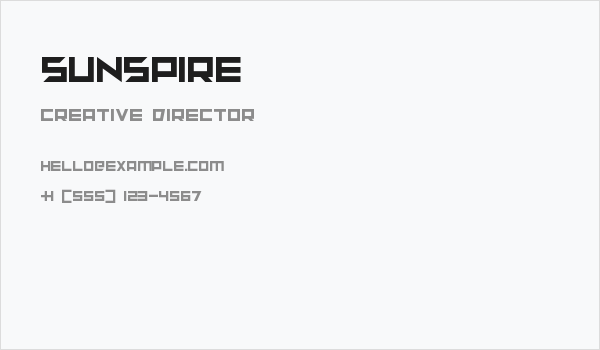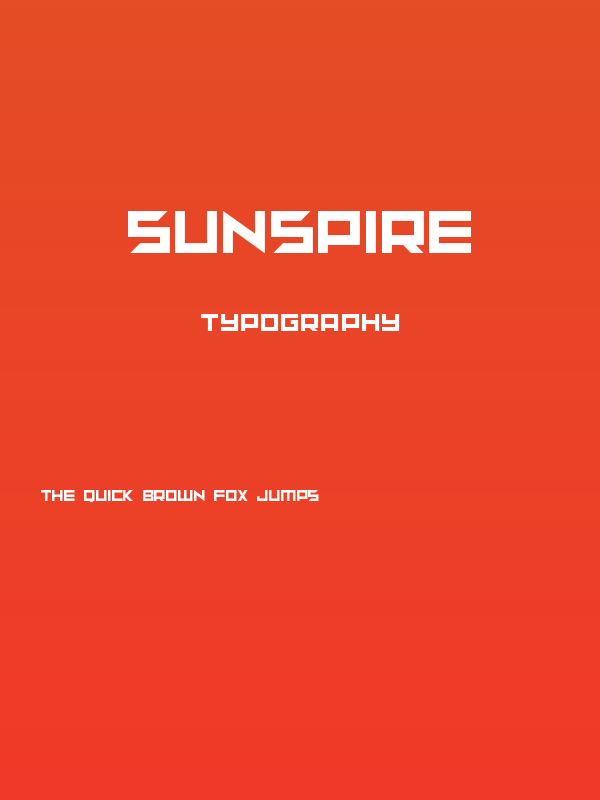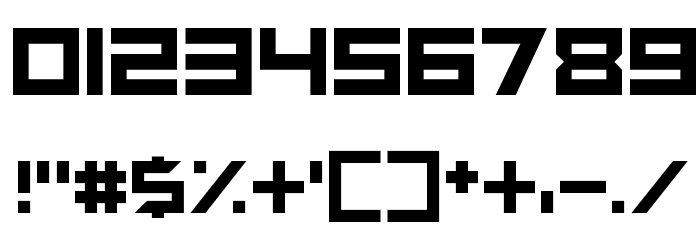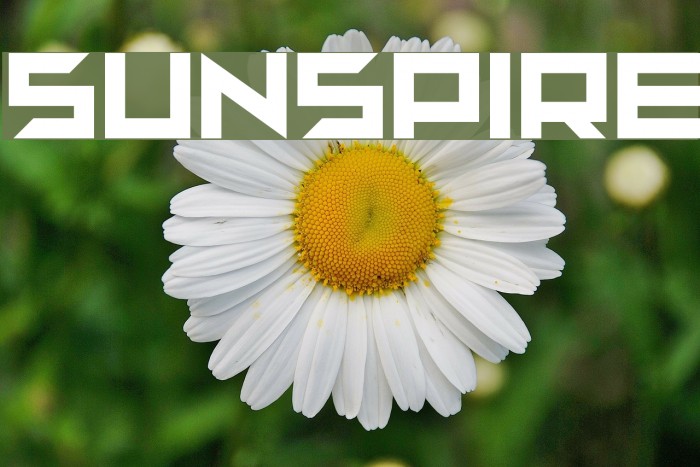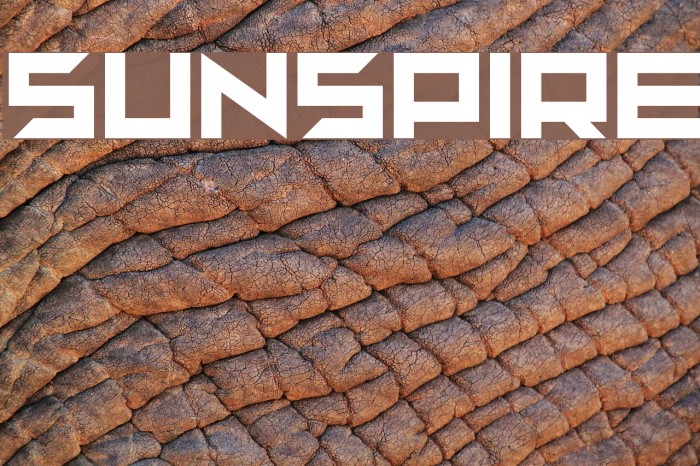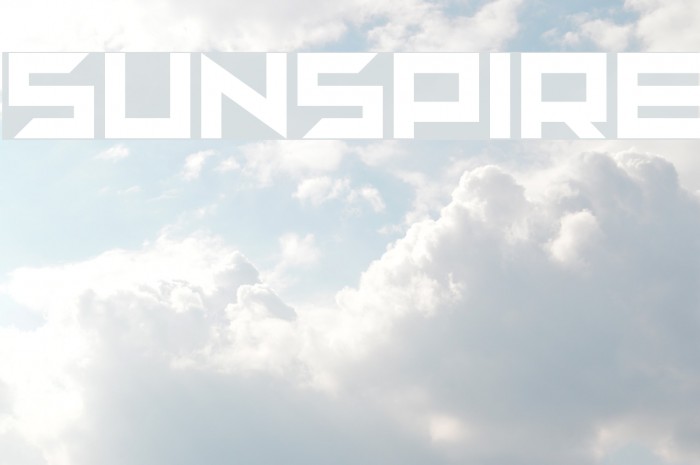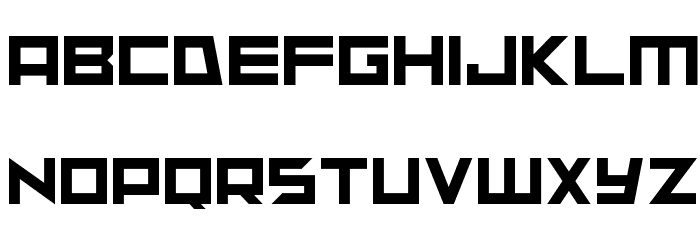
sunspire Font
sunspire Description
This font features a bold, geometric design with strong, angular lines and a futuristic aesthetic. The characters are constructed with a consistent stroke width, giving them a uniform appearance. The uppercase letters have a blocky, robust structure, while the lowercase letters maintain the same angular style, ensuring cohesion across the typeface. The numerals are equally bold and geometric, matching the overall style of the alphabet. Special characters are designed with the same attention to angularity and boldness, making them stand out. This font's design is ideal for projects that require a modern, tech-inspired look.
Darrell Flood